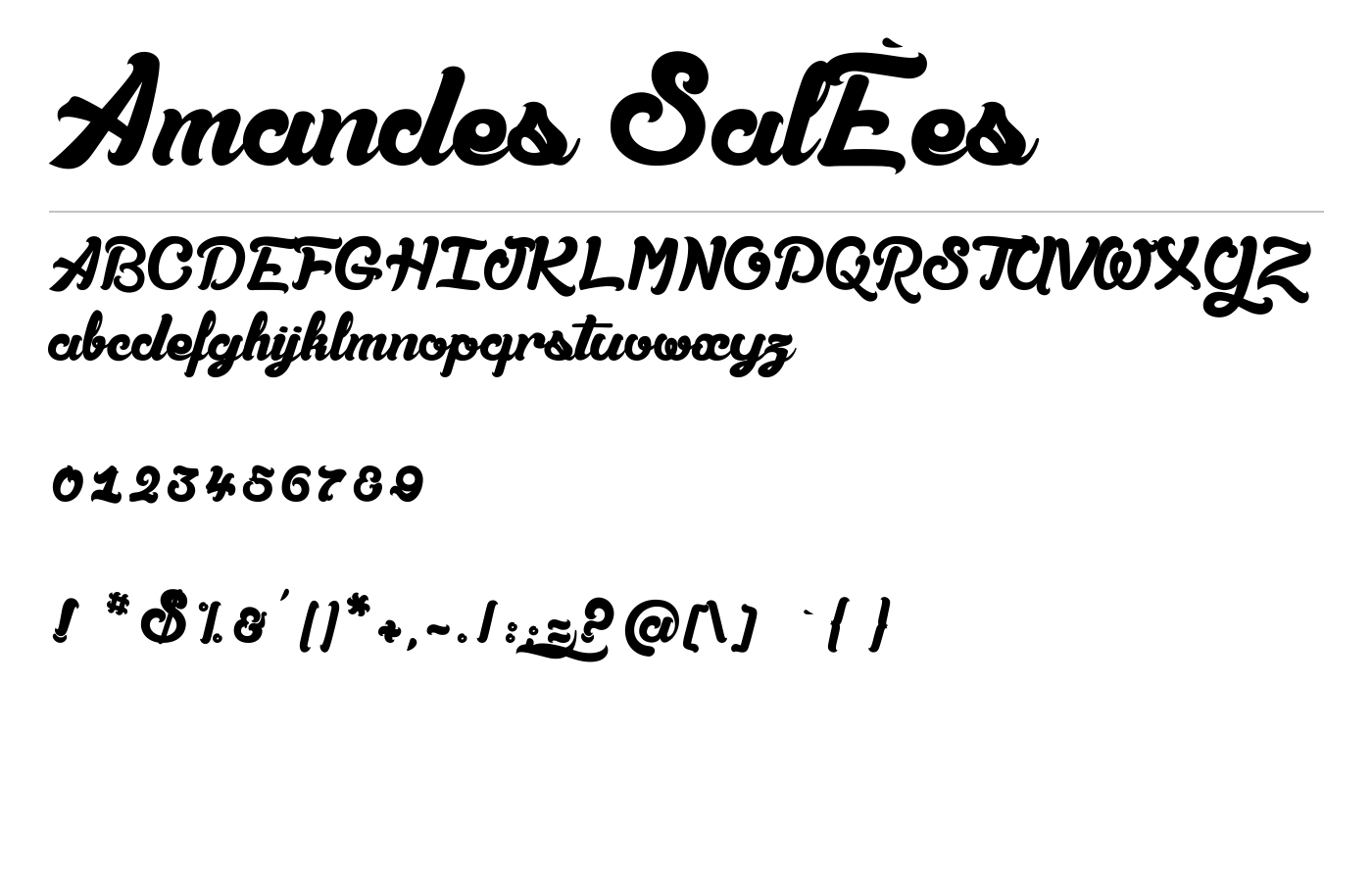
Amandes Salées is a bold, decorative script font that combines vintage charm with playful elegance. Its thick, flowing strokes and unique letterforms create a lively, handcrafted feel that works well for branding, packaging, and headlines where a distinctive, energetic style is needed. This font is perfect for designs that aim to capture attention with a whimsical yet confident personality.
Amandes Salées Font
About Amandes Salées Font